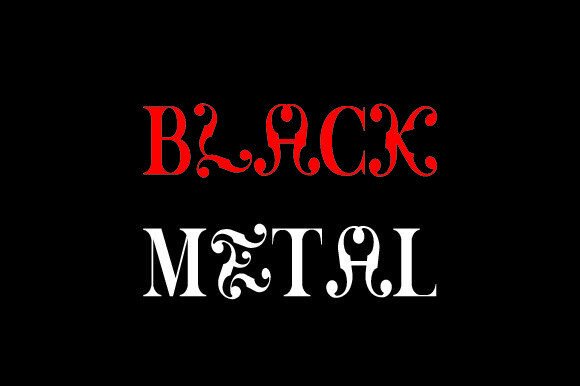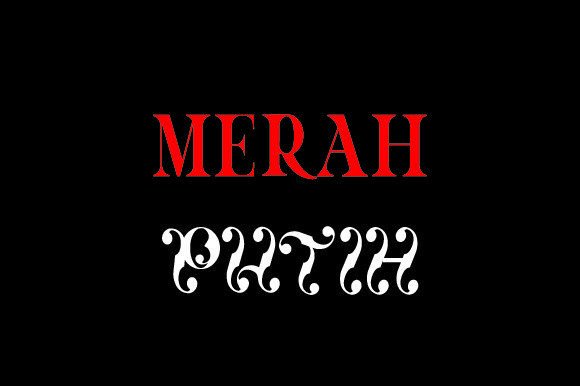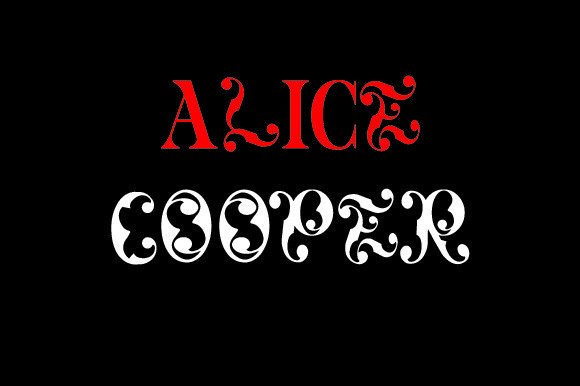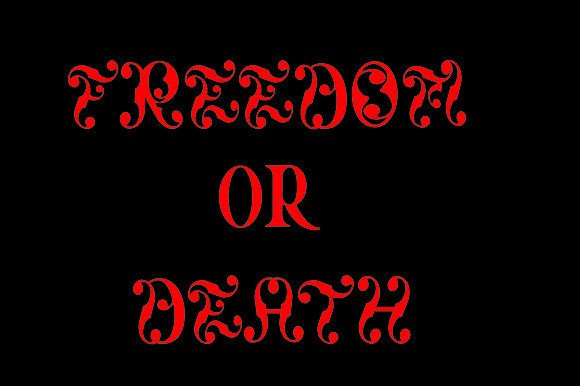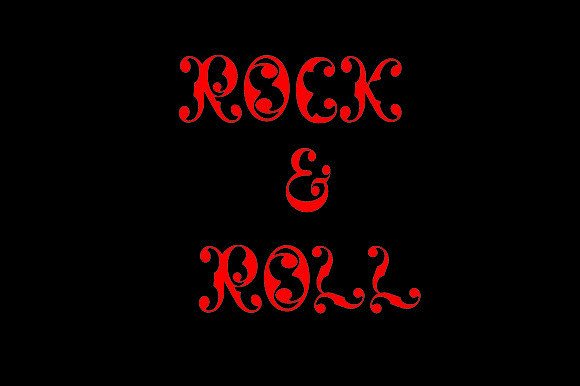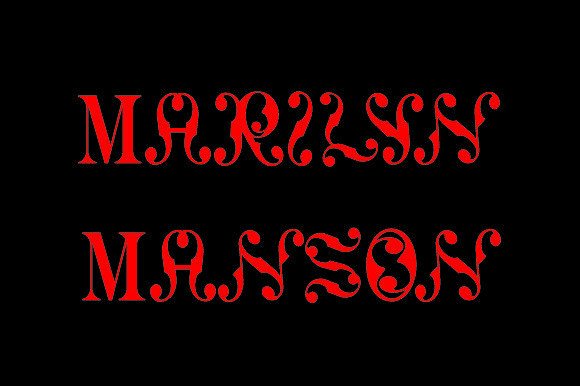
Introduction to Slipknot Font Font
Fonts play a crucial role in design, and the Slipknot Font font is a typeface that brings both character and versatility to any project. Whether you’re working on a branding project, a website, or a print design, the Slipknot Font font offers a unique style that can elevate your work.
Slipknot is a type of blackletter font made with a combination of standard letters and carved letters so it looks more elegant.
This font is suitable for screen printing designers for clothes, cassettes, posters, or others .
The Slipknot Font font is more than just a typeface – it’s a design tool that helps you communicate your message with style and clarity. Its unique character set and versatile design make it suitable for a wide range of applications, from elegant invitations to bold headlines.
With its carefully crafted letterforms and balanced proportions, the Slipknot Font font ensures readability and visual appeal across all mediums.
The Slipknot Font font stands out with its unique design, exceptional readability, and versatility across various design applications.